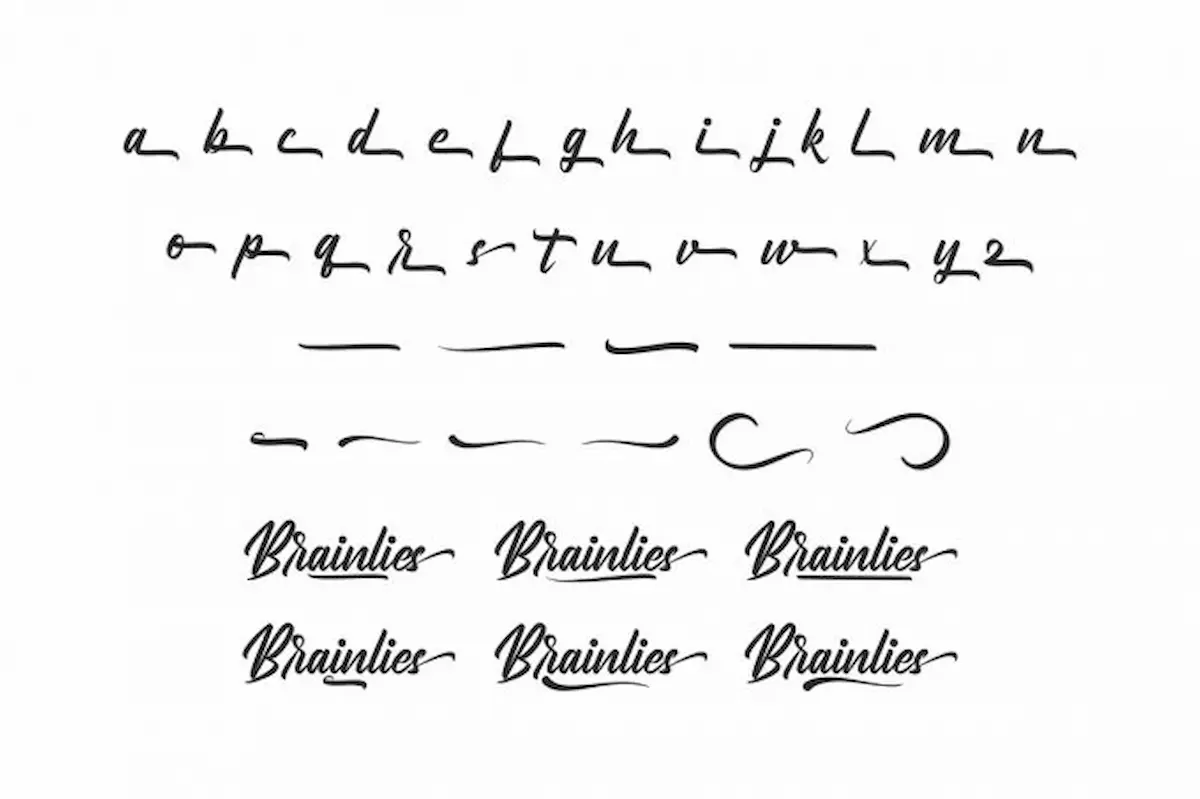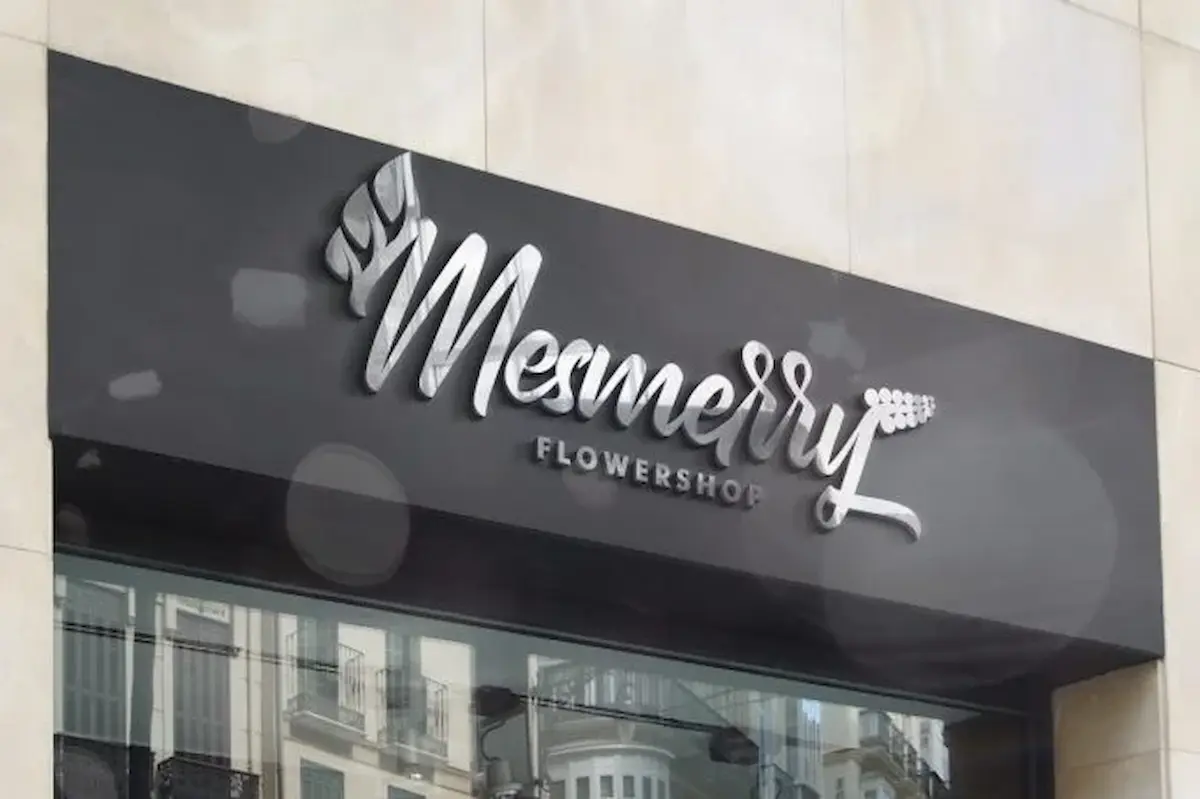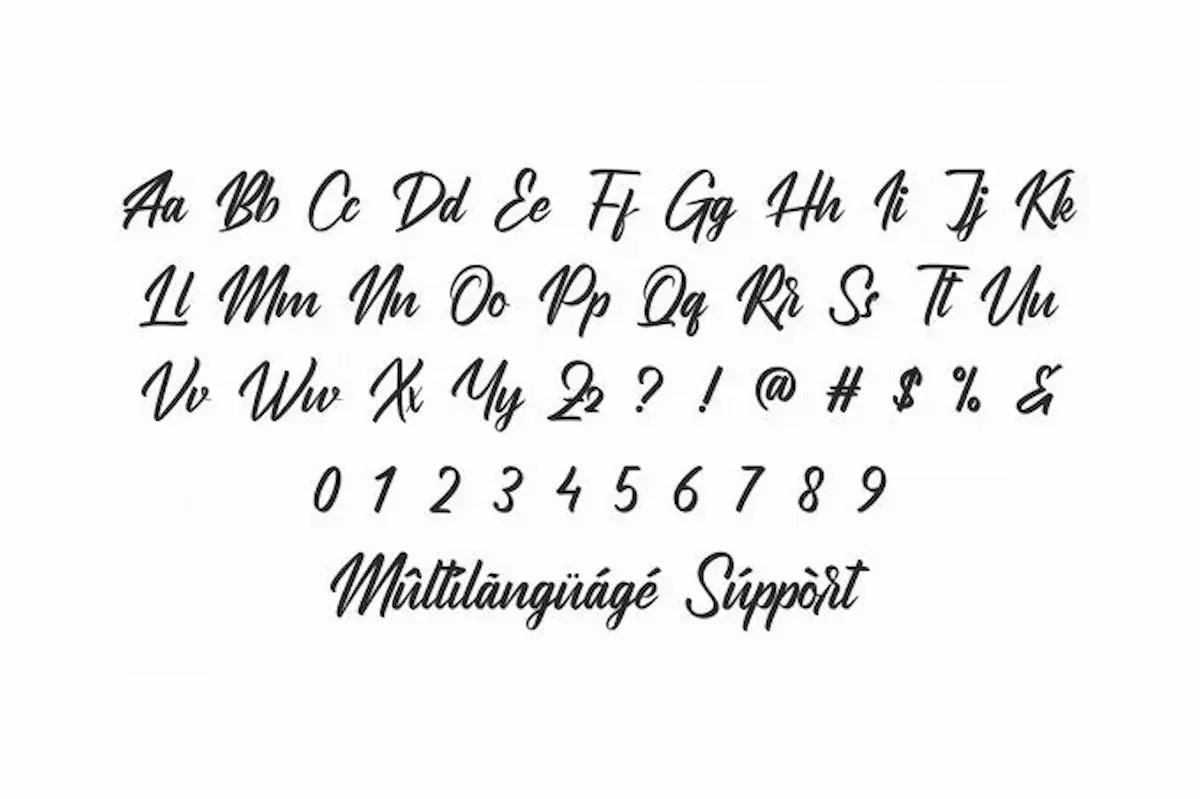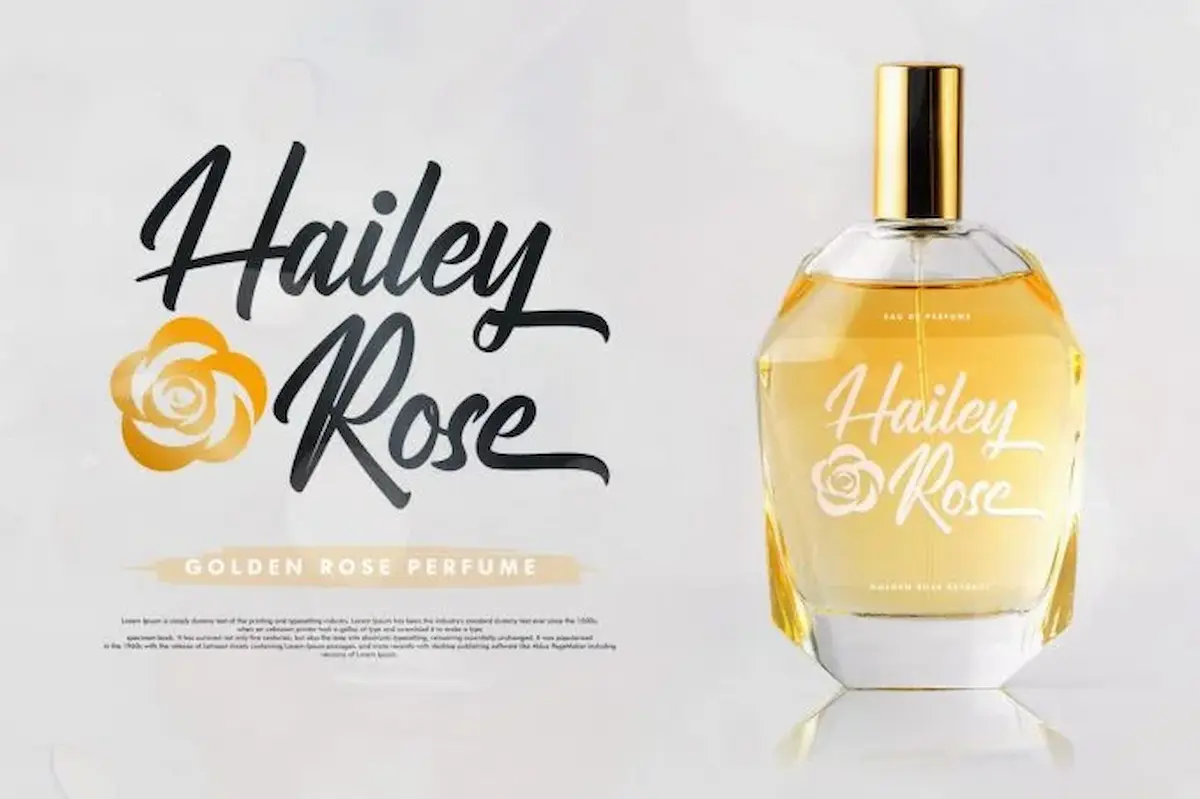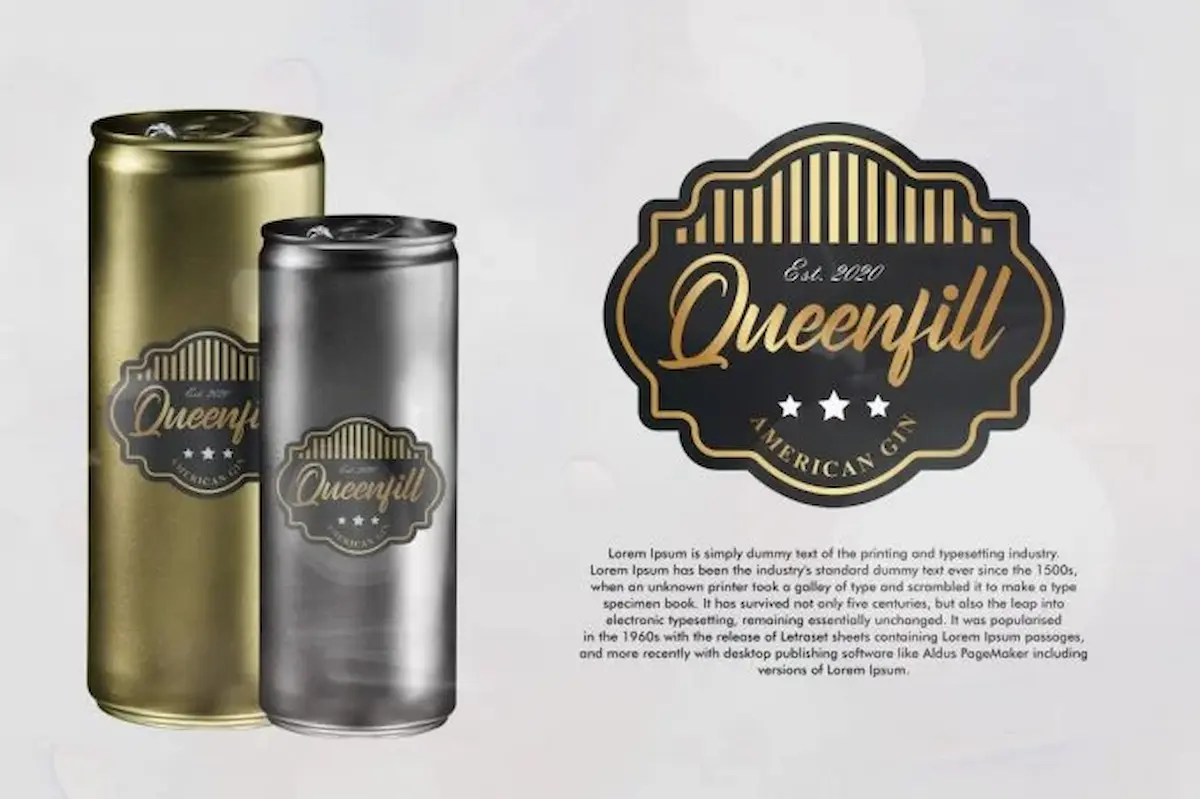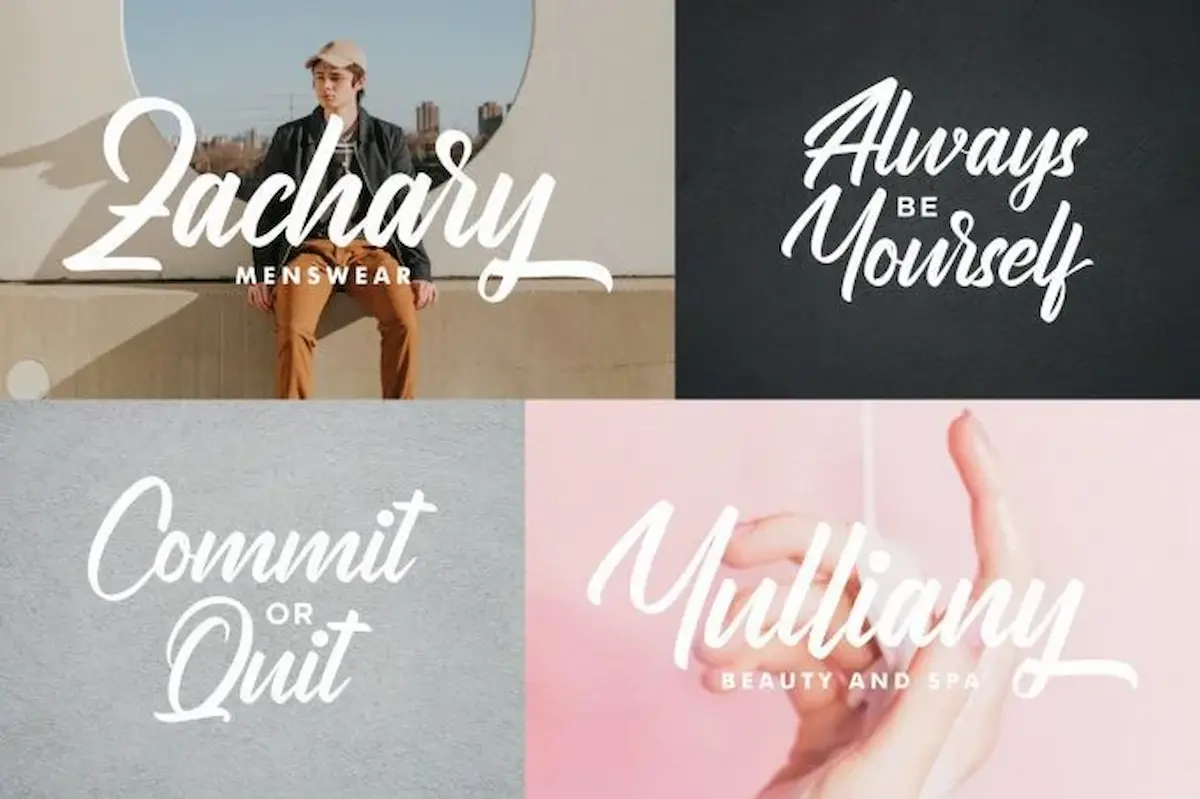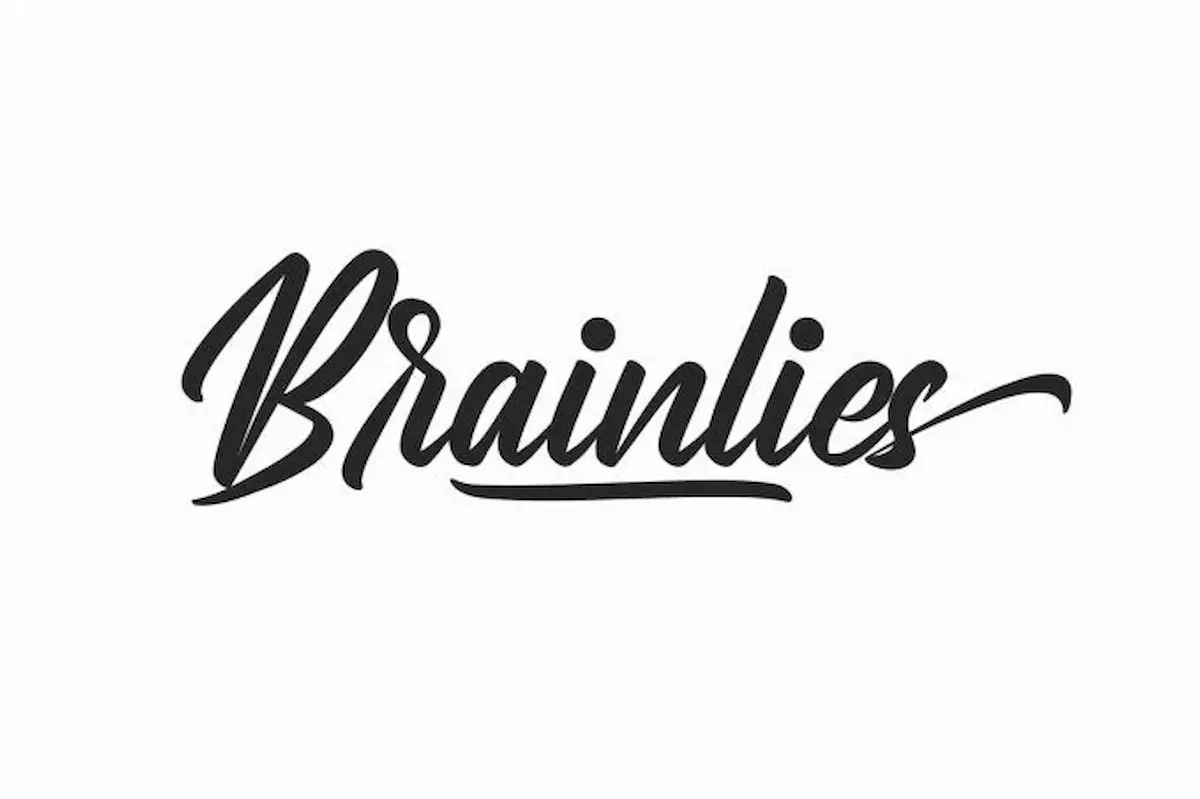
Brainlies Font
Brainlies Font – Luxury Brush Calligraphy Typeface by NihStudio
Brainlies Font is a luxury brush calligraphy font created by NihStudio in Indonesia. Designed in 2020 by in-house font artists Saeful and Sarah, this elegant typeface combines the charm of hand-lettering with the professionalism of a premium digital font.
🎨 Perfect for Creative Projects:
Brainlies is the ideal font choice for branding, logo design, business cards, wedding invitations, social media posts, signage, flyers, and more. Its flowing strokes and stylish characters bring a vintage, glamorous, and sophisticated look to any layout.
This elegant script font fits perfectly with projects in industries like:
• Real estate & architecture
• Law firms & consultants
• Beauty salons, florists & makeup artists
• Hotels, travel agencies & event organizers
• Musicians & content creators
✅ Why Choose Brainlies?
• Elegant brush calligraphy look
• Professional-quality kerning